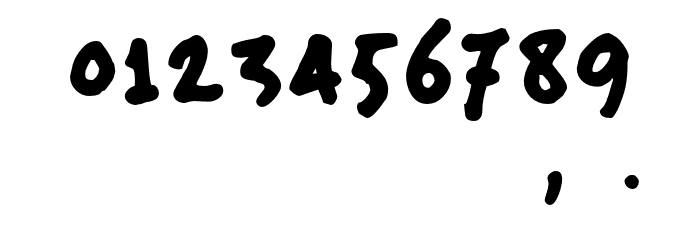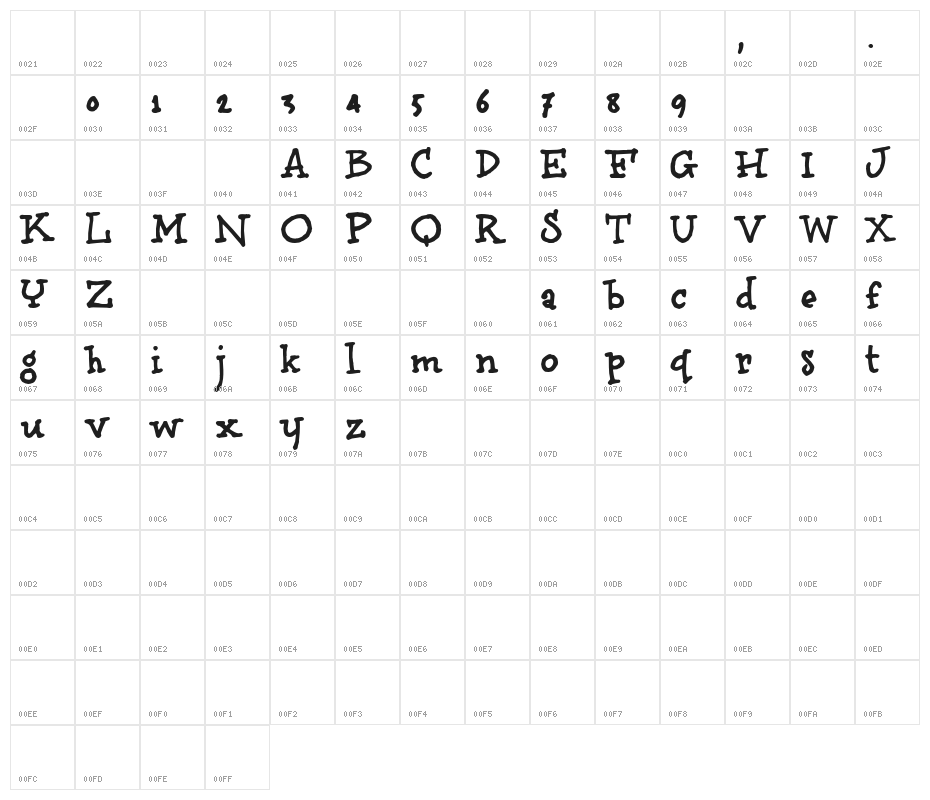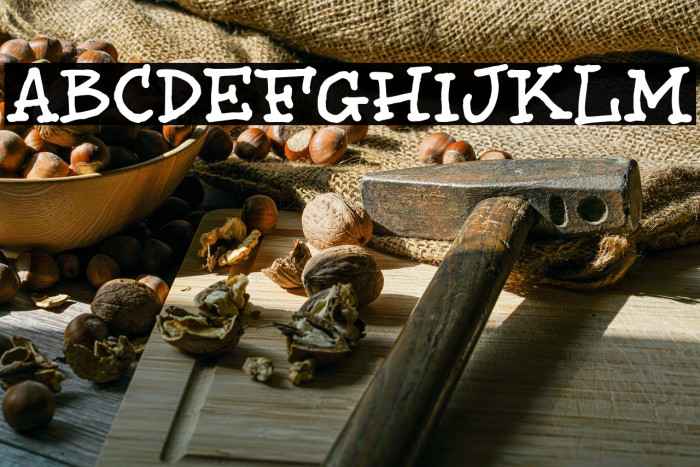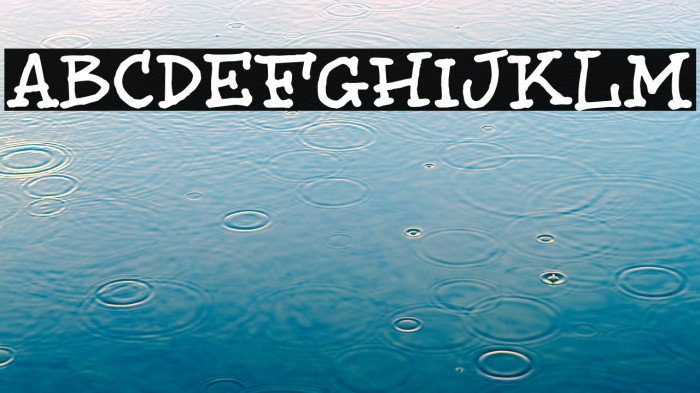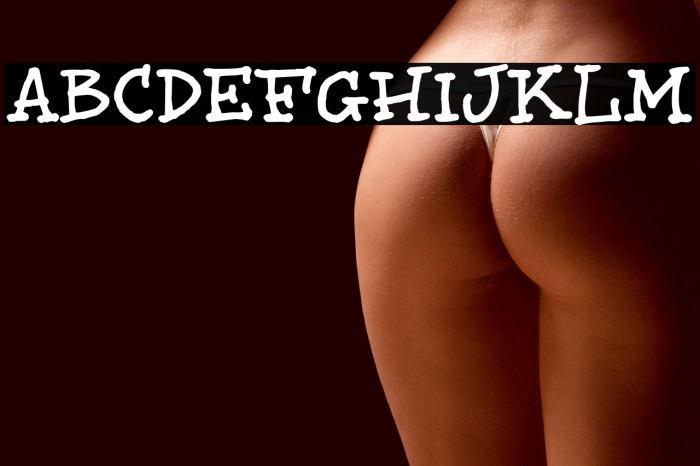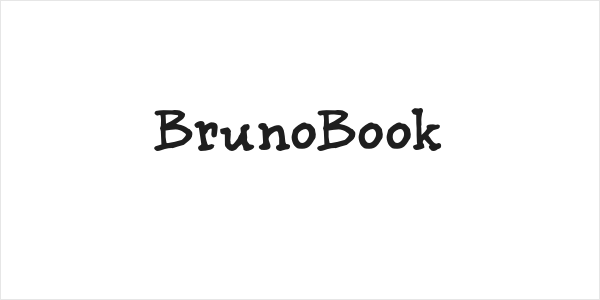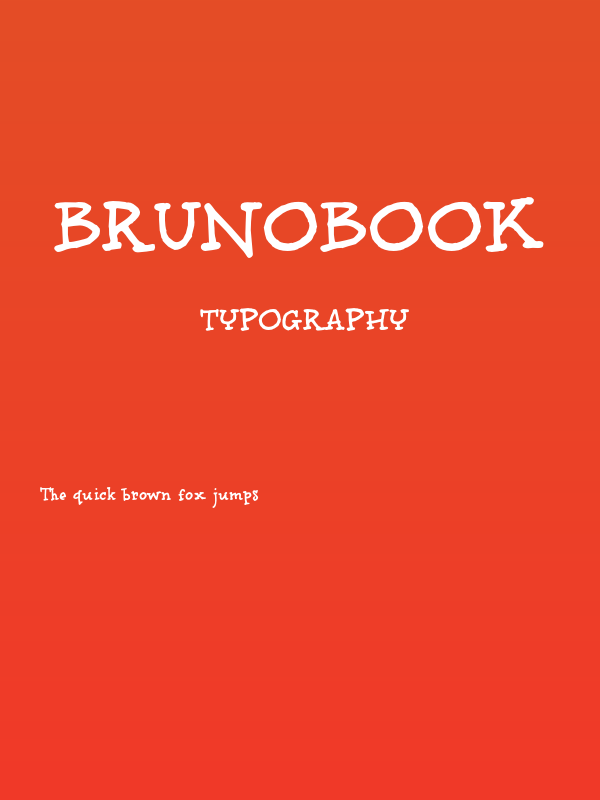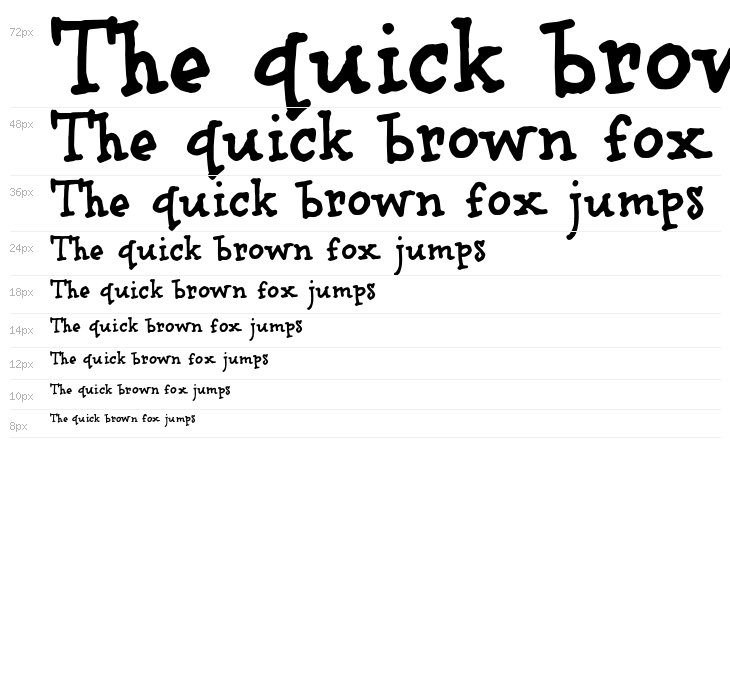
BrunoBook Font
BrunoBook Description
This font features a playful and slightly irregular style, reminiscent of hand-drawn or handwritten text. The characters have a whimsical and artistic flair, with uneven strokes and a casual appearance. The uppercase letters are bold and prominent, while the lowercase letters maintain a consistent style with a touch of quirkiness. The numerals are distinct and easy to read, matching the overall playful theme. This font is ideal for projects that require a fun and informal touch, such as children's books, creative posters, or artistic branding.
| Proposed Projects | Children's books, creative posters, artistic branding, informal invitations. |